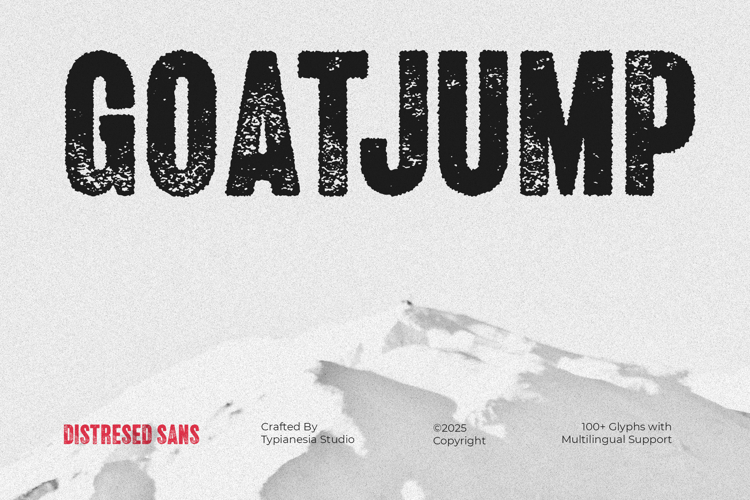
Goatjump - Bold Vintage Rough Distressed Stamp Font
Goatjump - Bold Vintage Rough Distressed Stamp Font - Modern Grunge Sans Display Font
Goatjump is a Bold and commanding Distressed Sans typeface that perfectly captures an authentic Vintage aesthetic. With its deep, textured Grunge feel, the font simulates a worn rubber Stamp or an ink print Effect, It is the ultimate tool for creating striking Logos, authentic Labels, distinctive Badges for craft beverages, apparel, artisan goods, impactful Posters, powerful headlines, branding that aims for a genuine, handcrafted identity any projects that require a touch of gritty and rugged character. This typeface infuse your brand with a timeless, industrial, and bold sense of quality.